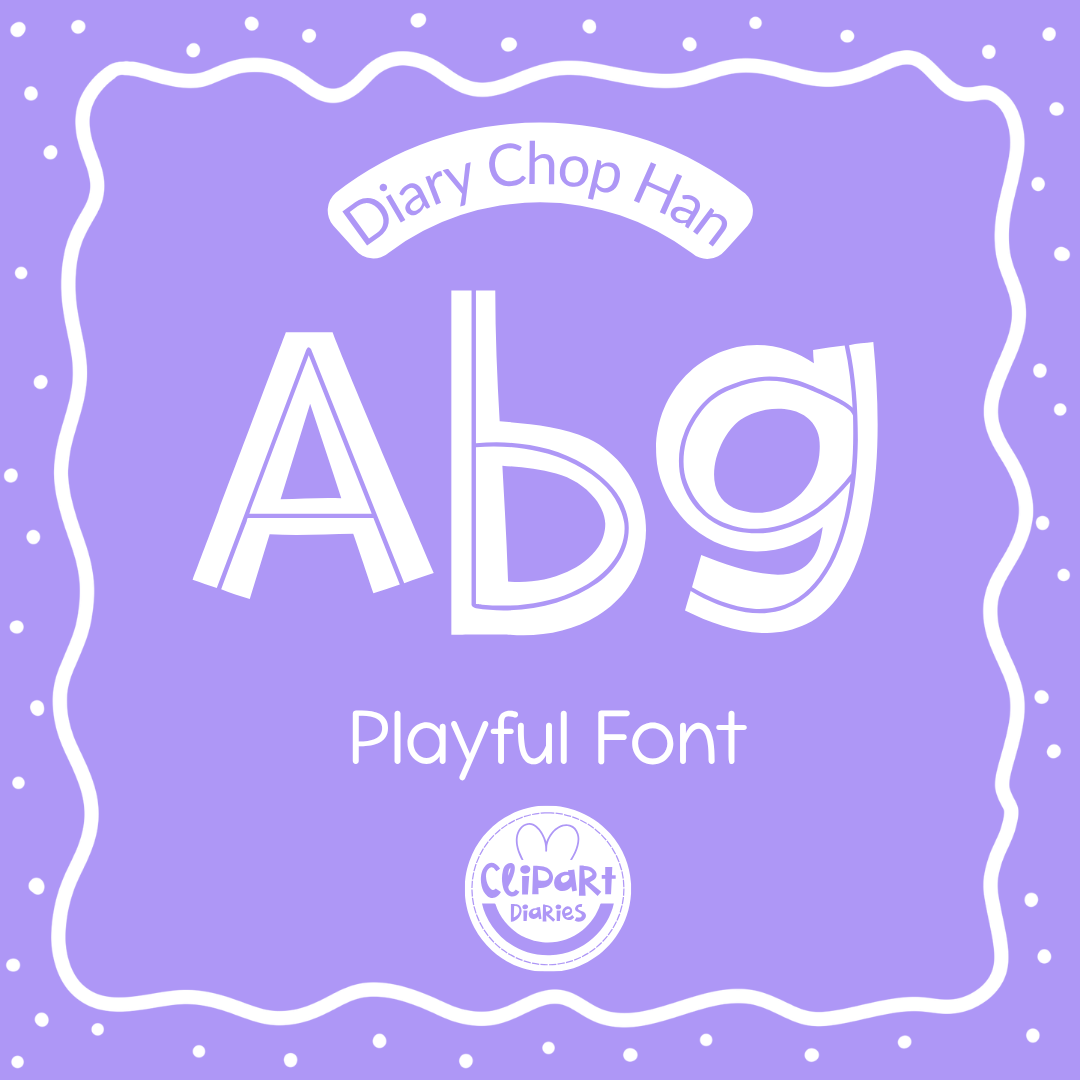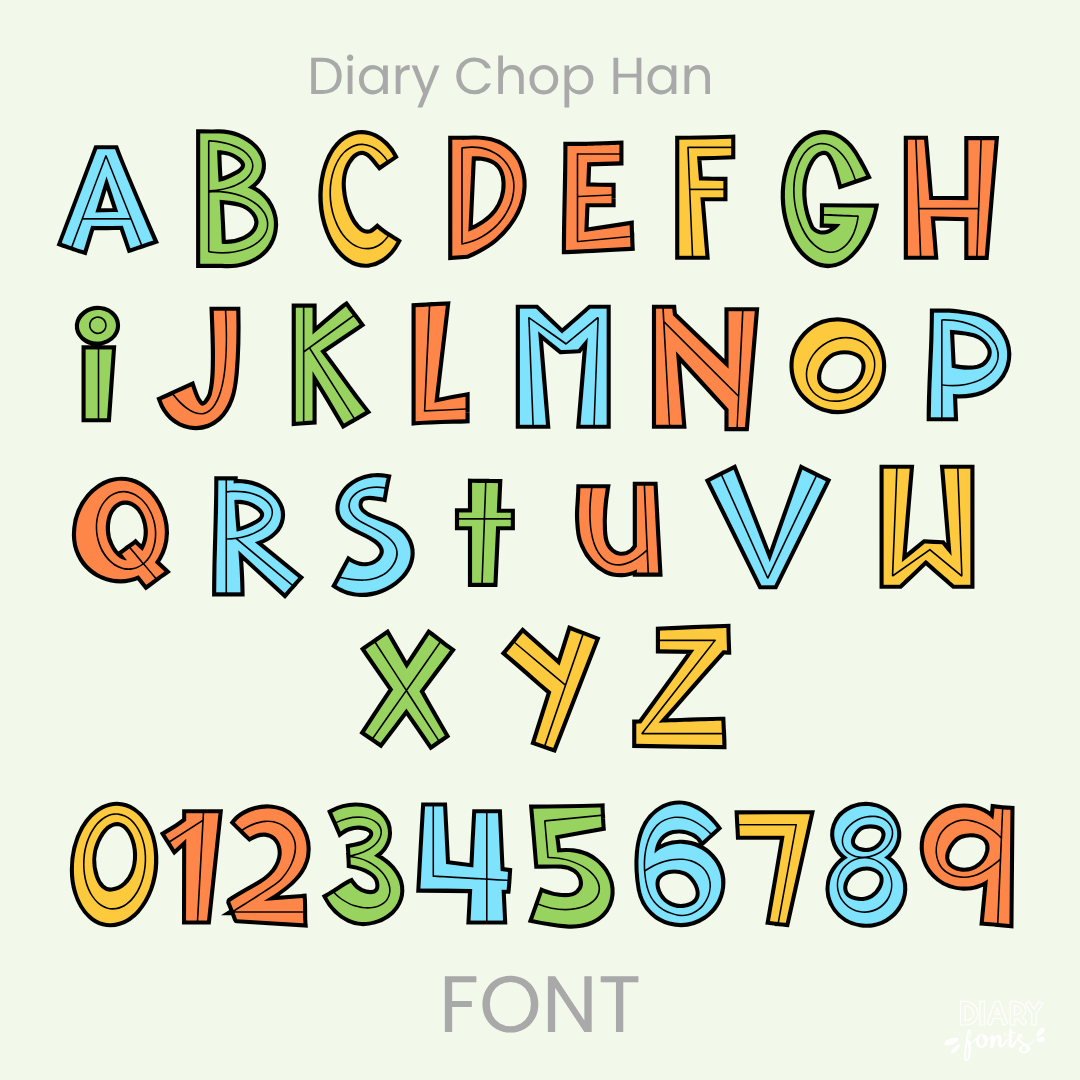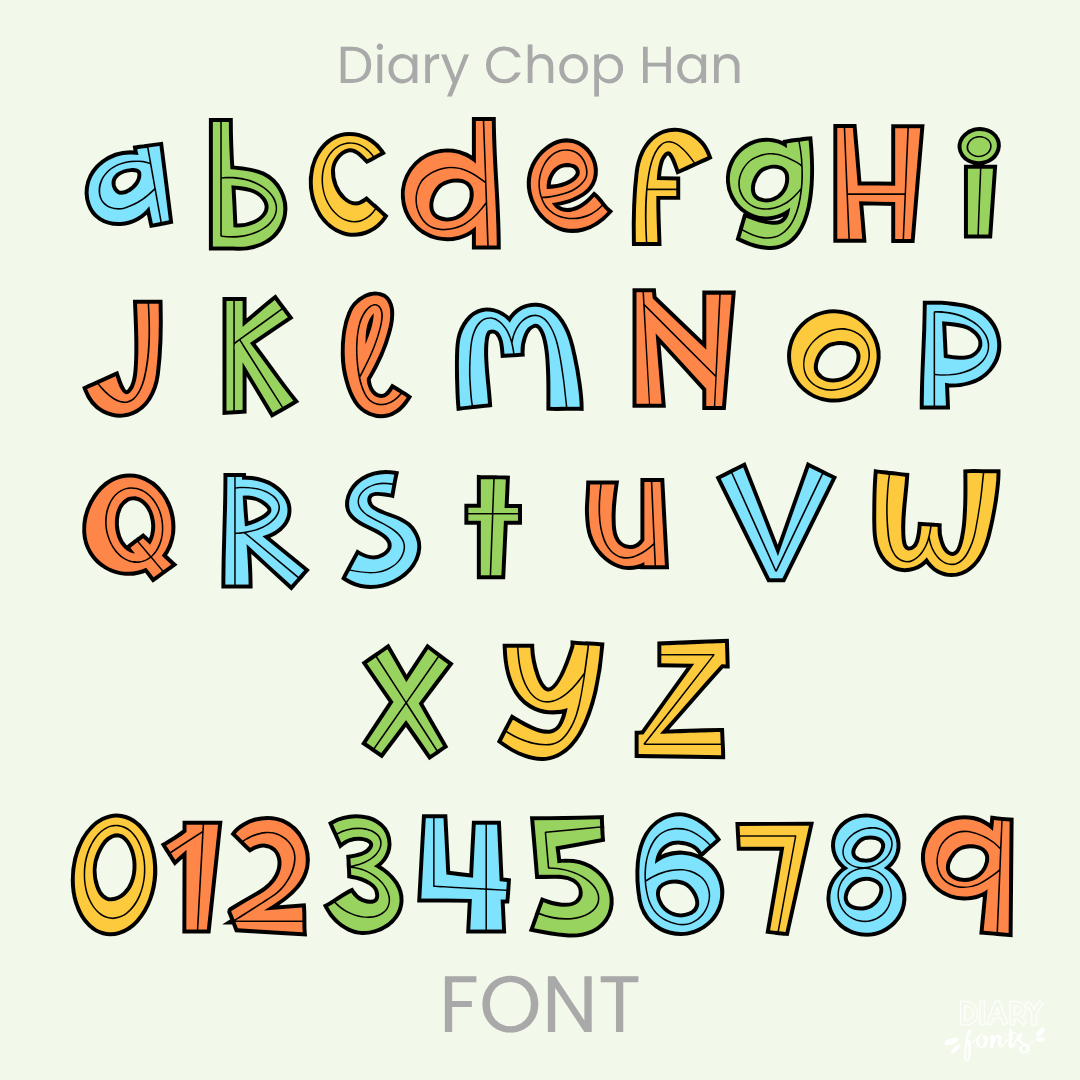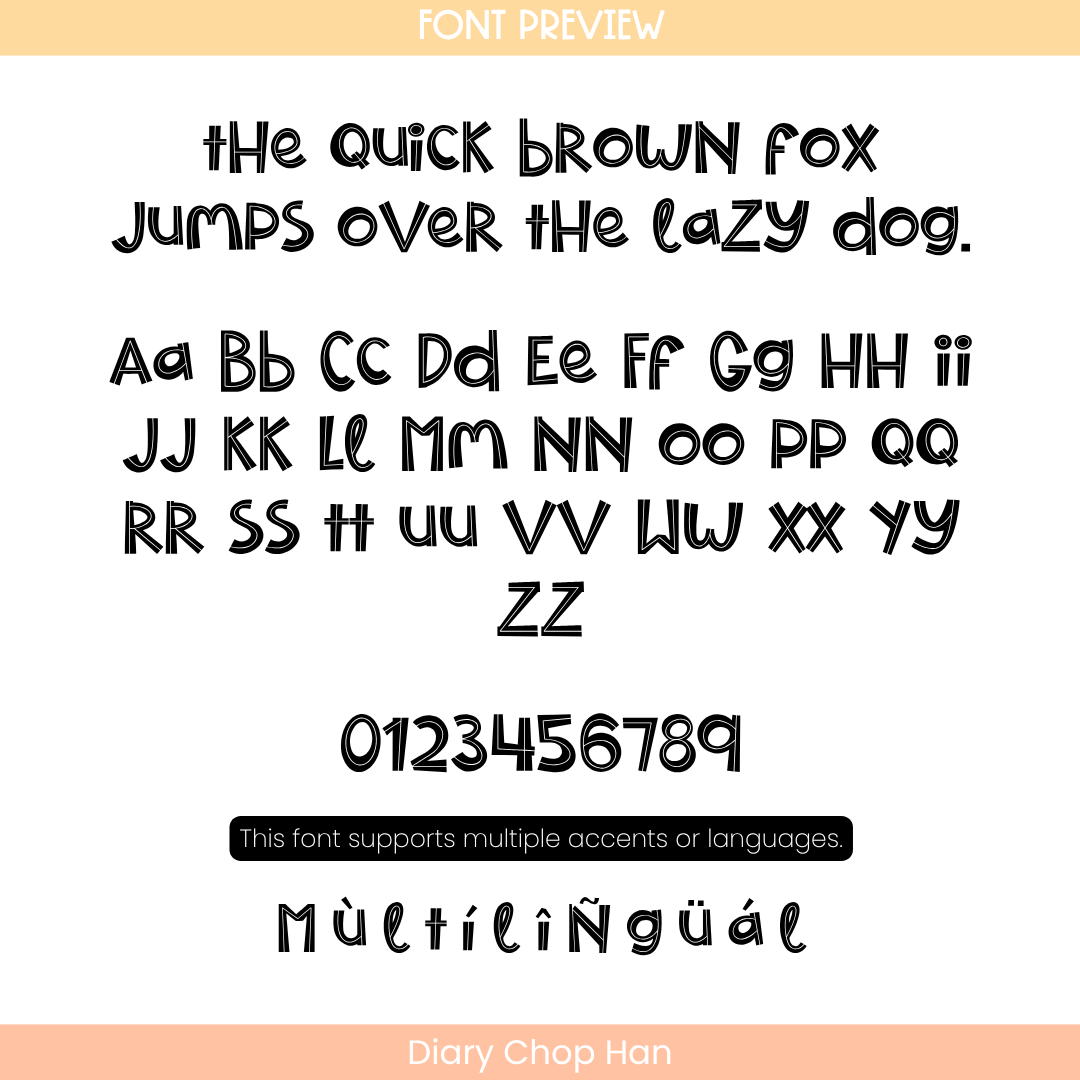
The Diary Chop Han is a playful and uniquely styled handwritten font designed to bring a bold, rhythmic energy to your digital resources and classroom materials.
If you want to add an eye-catching and creative touch to your designs, Diary Chop Han is a great pick. It features distinct, mixed-case letterforms and stylized geometric angles that give your text an energetic, hand-cut appearance. This expressive style is wonderful for themed classroom decor, bold titles on worksheets, or making important announcements stand out on digital slides. It includes a full set of uppercase and lowercase layouts, numbers, and multiple accents to support different languages. It is ready for use in Canva, MS Office, and Adobe Apps, and it works flawlessly on the iPad with GoodNotes and Procreate. Whether for your own students or for commercial resource templates, this font adds a fun and memorable vibe to any project.